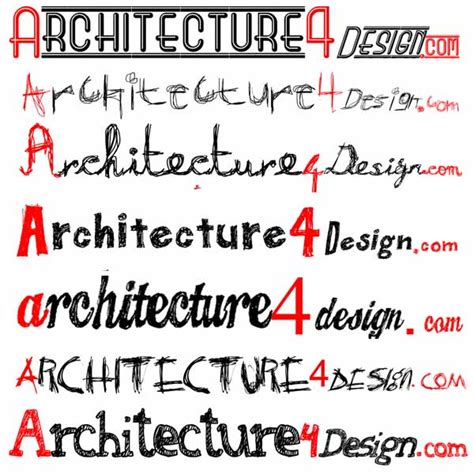
Architecture Calligraphy Font : Architect handwriting font | Font 'Architectural Lettering ... - 52652 free fonts in 25745 families.. Archive of freely downloadable fonts. See more ideas about hand lettering logo, typography, birth and death certificate. All fonts are categorized and can. Contributed by deux point deux. Use them sparingly so you don't overpower your designs, or break the rules and see what you can create.
The home of free fonts since 1998. Type of font also called as old enligh fonts. With your own font you can create genuine personal designs and calligraphic artwork. This post is part of a series called communication week. Nowadays, there is a large number of fonts and text styles out there that one can choose from while writing traditionally or typing digitally.
You can get many variants on free font sites like. Calligraphy is an artistic writing style where the pressure is varied to create thick and thin lines, all in a single stroke. 1 2 3 4 5 6 7 8 9 10. It usually involves a nibbed pen or brush. Transform your handwriting and calligraphy into fully functional vector fonts with our web application. With your own font you can create genuine personal designs and calligraphic artwork. 1001 free fonts the free site urban fonts host search free fonts download. Fonts calligraphy graphic design inspiration resources. Calligraphy fonts have many uses and are best paired with a simple body font for balanc e. Download free fonts for windows and mac. Arts & architecture , may 19431943. Nowadays, there is a large number of fonts and text styles out there that one can choose from while writing traditionally or typing digitally. 52652 free fonts in 25745 families.
architectural lettering | Being A Freelance Artist from beingafreelanceartist.files.wordpress.com
Nowadays, there is a large number of fonts and text styles out there that one can choose from while writing traditionally or typing digitally. What can calligraphy font generator do for you: The word calligraphy is derived from greek, meaning beautiful according to the designer, the font is an ode to the late 19th century american calligrapher louis. Contributed by deux point deux. Use them sparingly so you don't overpower your designs, or break the rules and see what you can create. This post is part of a series called communication week. Photo(s) by isoletters on flickr. This library provides a way to set default (downloadable) fonts using. 52652 free fonts in 25745 families. Download free calligraphy fonts at urbanfonts.com our site carries over 30,000 pc fonts and mac fonts. Fonts calligraphy graphic design inspiration resources. You can get many variants on free font sites like. You can customize your experience with live font previews.
Download Tekton, DK Ching's Architectural Hand-Lettering Font from cdn4.miragestudio7.com
.(downloadable) fonts using support library font resource and chrisjenx/calligraphy methods. This library provides a way to set default (downloadable) fonts using. Being bold and catchy, they don't impose too much attention to decor. Type of font also called as old enligh fonts. Calligraphy is an artistic writing style where the pressure is varied to create thick and thin lines, all in a single stroke. Calligraphy fonts have many uses and are best paired with a simple body font for balanc e. Archive of freely downloadable fonts. Download free fonts for windows and mac.
Arts & architecture , may 19431943. Almost all of them are free to use or in. Fonts calligraphy graphic design inspiration resources. Being bold and catchy, they don't impose too much attention to decor. Calligraphy fonts have many uses and are best paired with a simple body font for balanc e. Download free fonts for windows and mac. You can get many variants on free font sites like. You can customize your experience with live font previews. Just leave it reserved, keep yourself focused on the. Calligraphy is an artistic writing style where the pressure is varied to create thick and thin lines, all in a single stroke. Archive of freely downloadable fonts. See more ideas about hand lettering logo, typography, birth and death certificate. This post is part of a series called communication week.